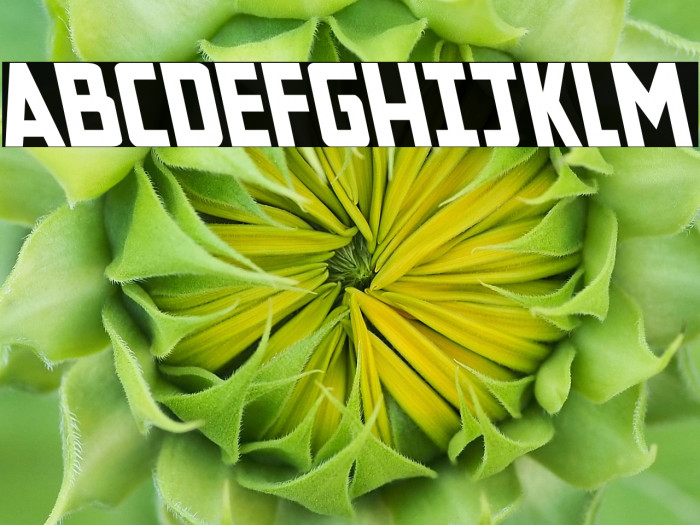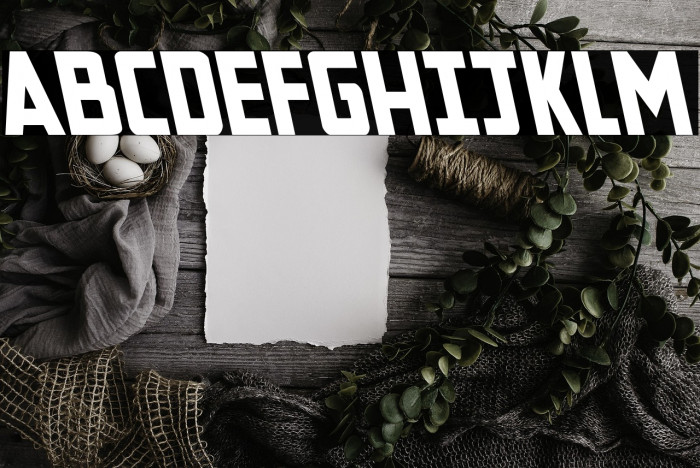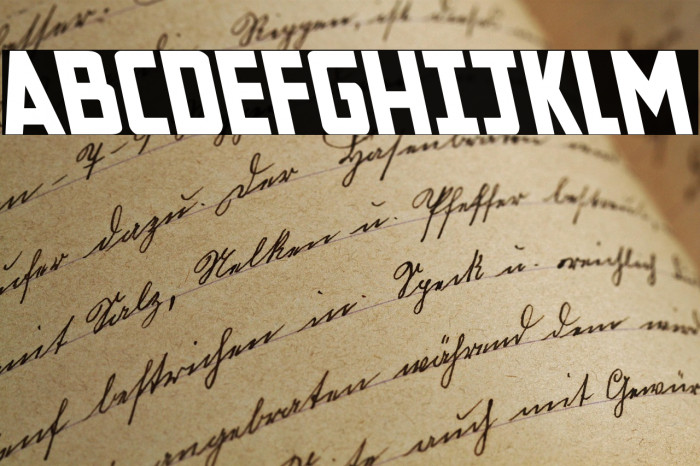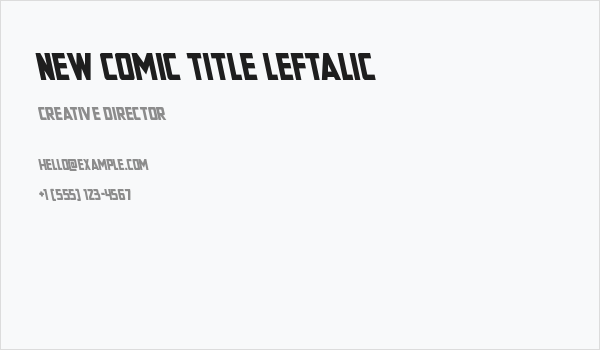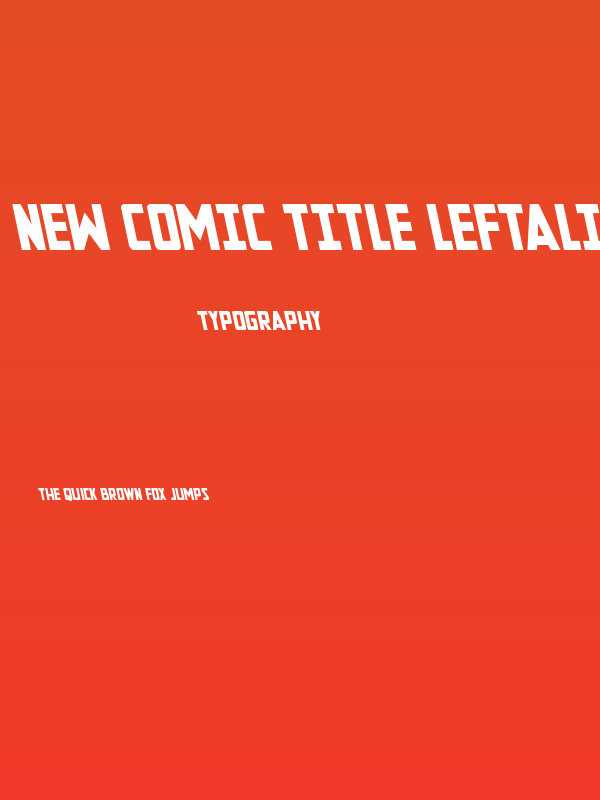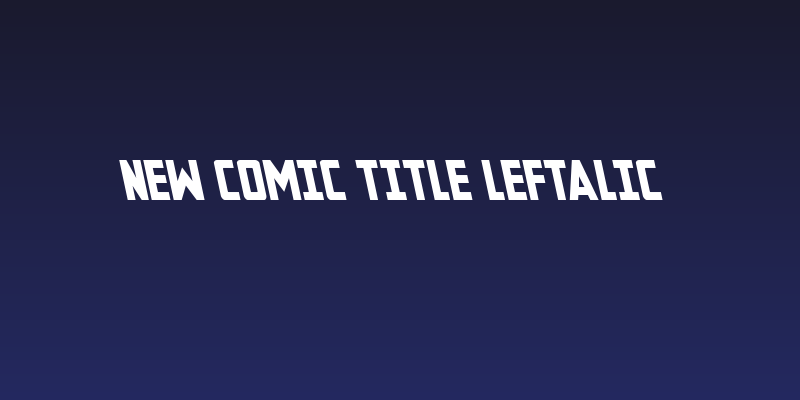
New Comic Title Leftalic Font
New Comic Title Leftalic Description
This font features a bold and dynamic style with a left-leaning italic slant, giving it a sense of motion and energy. The characters are blocky and robust, with consistent stroke widths that convey strength and stability. The uppercase and lowercase letters maintain a uniform appearance, enhancing readability while adding a modern twist. The numerals and special characters are designed to match the overall aesthetic, making them suitable for various applications. The font's geometric shapes and sharp angles contribute to its contemporary and assertive look, making it ideal for attention-grabbing designs.
| Proposed Projects | Ideal for comic book titles, posters, logos, and any design requiring a bold and energetic typeface. |